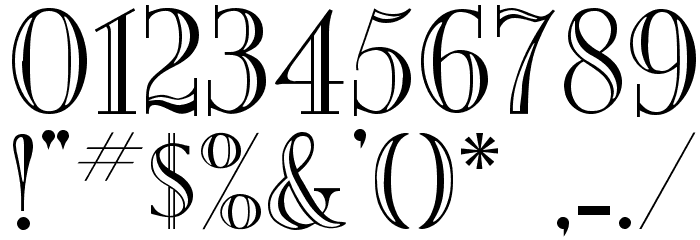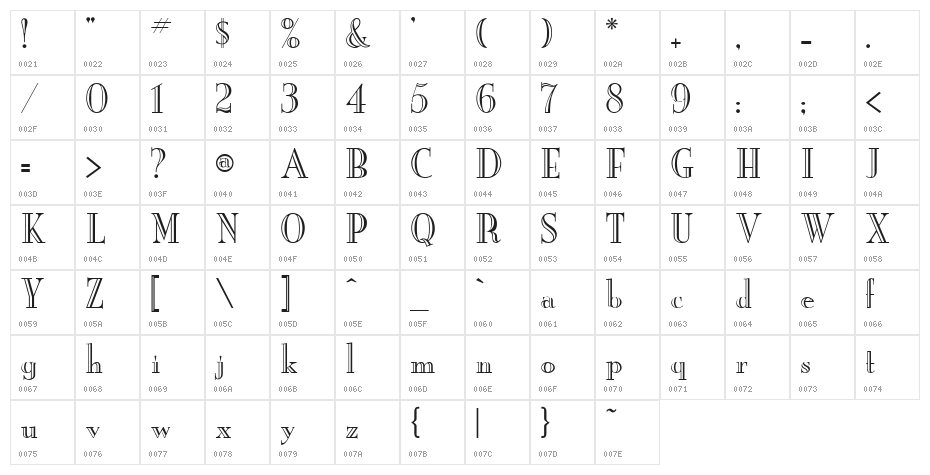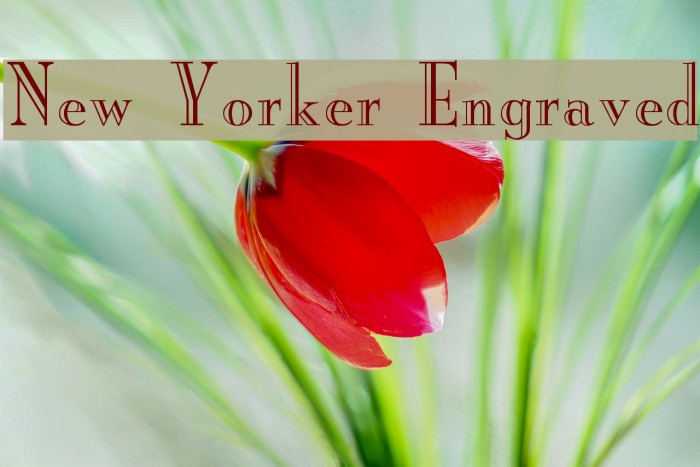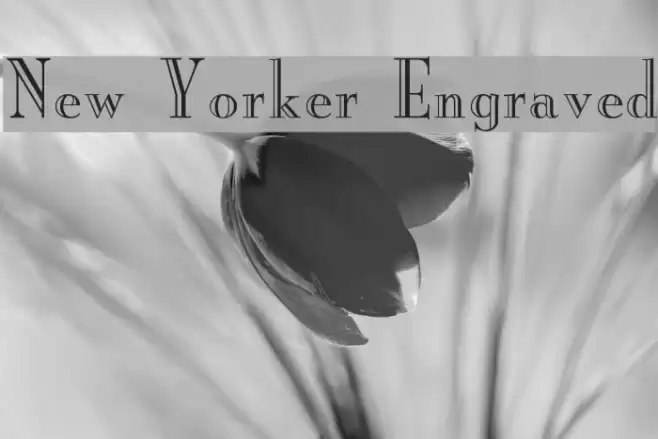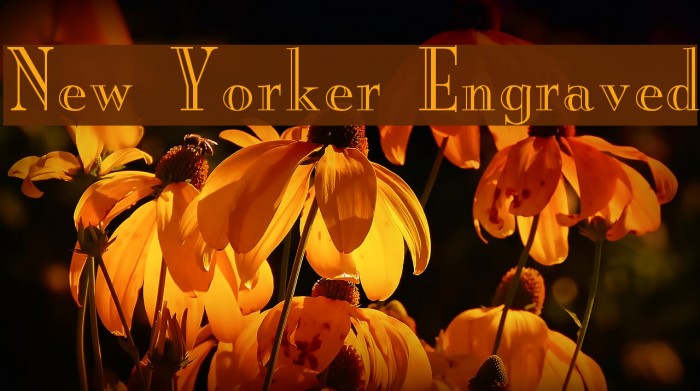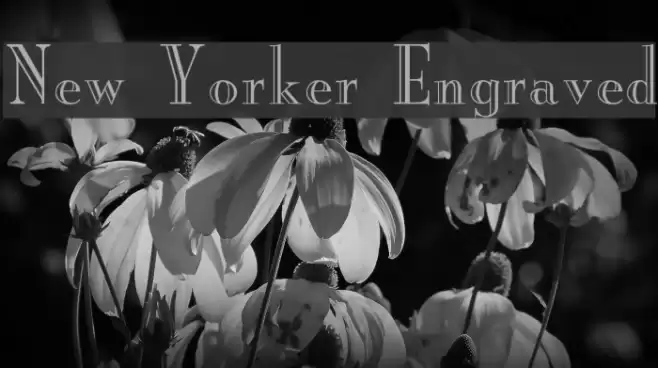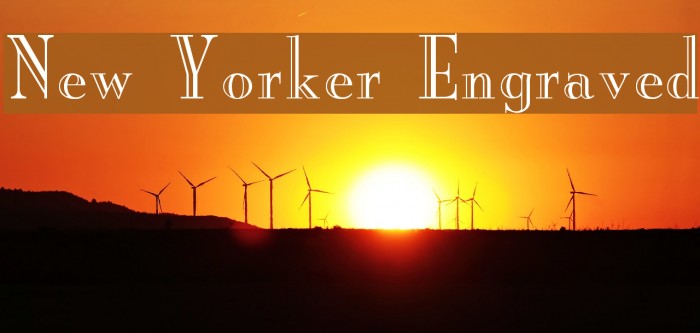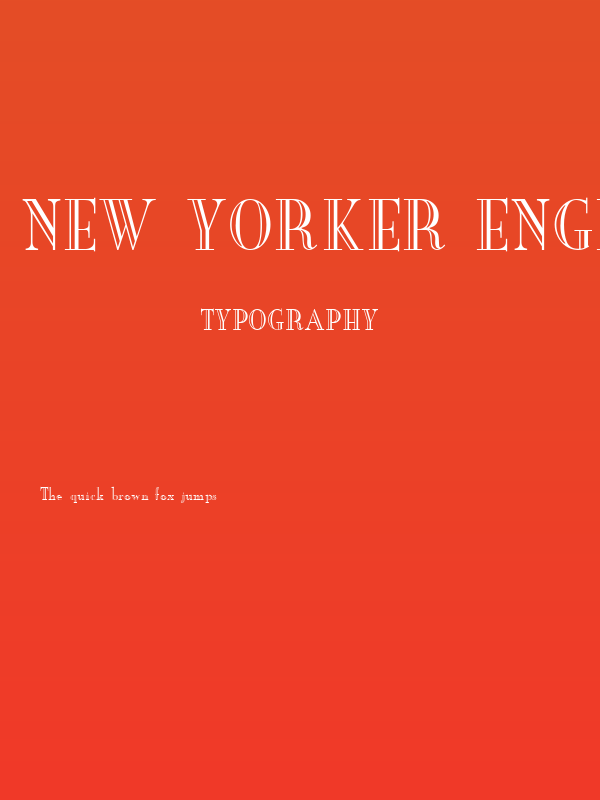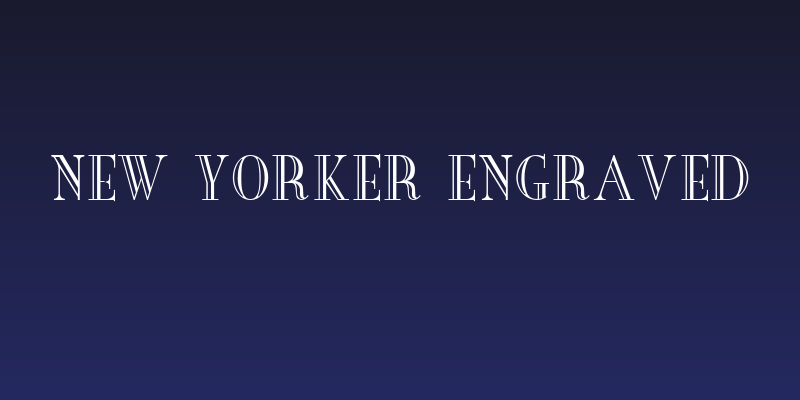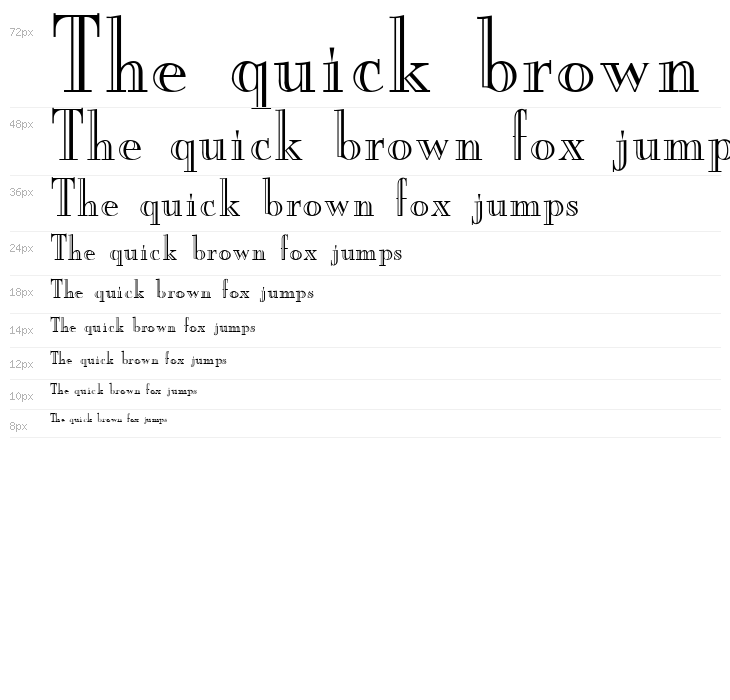
New Yorker Engraved Font
New Yorker Engraved Description
This font features a sophisticated and elegant design, characterized by its engraved appearance and high contrast between thick and thin strokes. The uppercase letters are tall and slender, with a refined and classic serif style that gives them a timeless appeal. The lowercase letters maintain the same elegance, with a slightly more playful touch in their curves and angles. The numerals are distinct and stylish, matching the overall aesthetic with their unique shapes and engraved look. Special characters are crafted with the same attention to detail, ensuring consistency across the entire typeface. This font exudes a sense of luxury and tradition, making it ideal for projects that require a touch of class and sophistication.